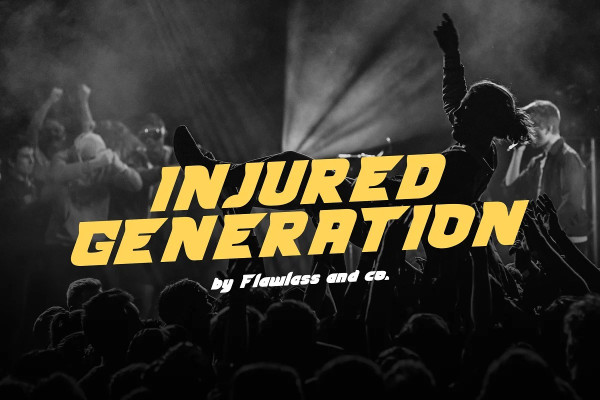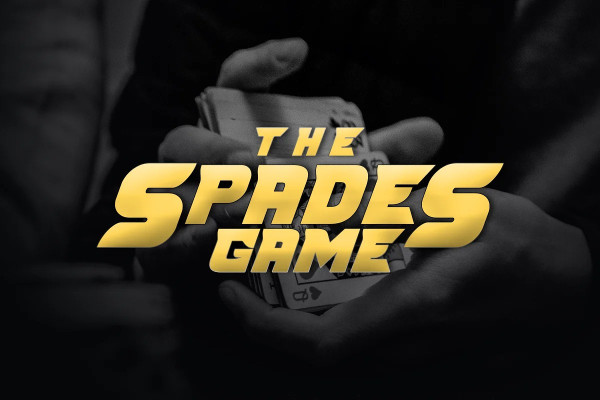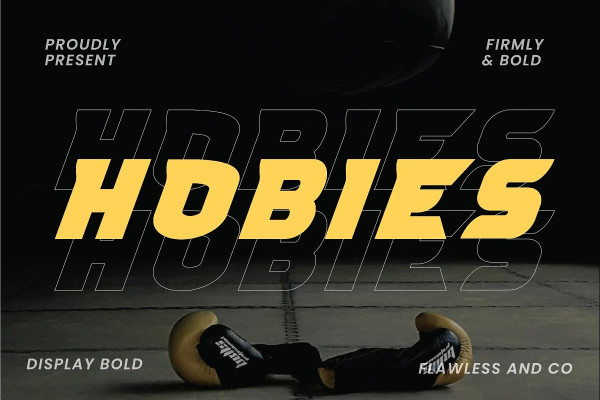
Hobies Display Font
Hobies Display Font, a display font that combines firm boldness with a touch of uniqueness. With its strong and commanding letterforms, Hobies makes a bold statement, while its outline regular variant adds a distinctive edge to your designs. This font is suitable for branding, business, logos, magazines, and others.